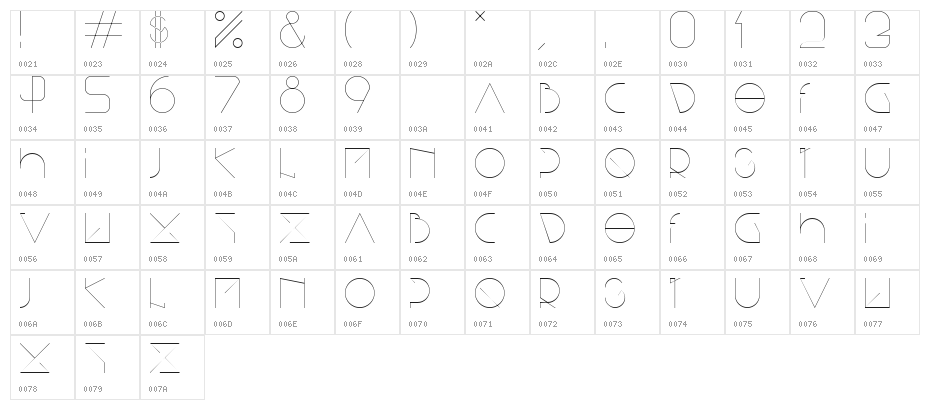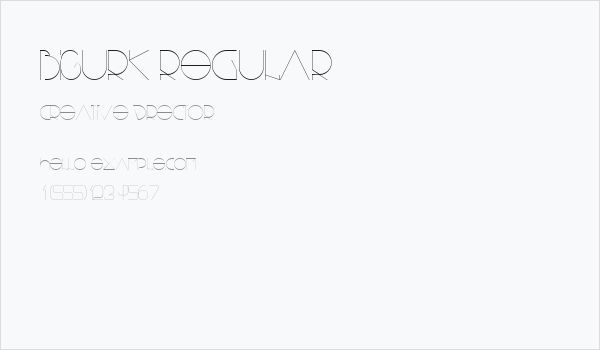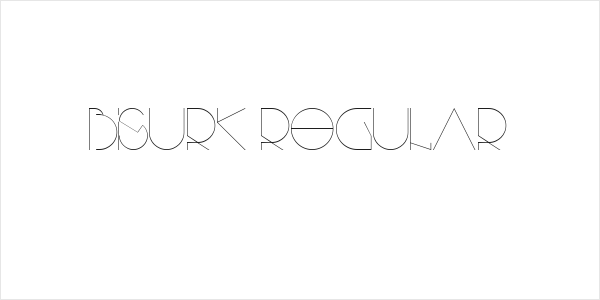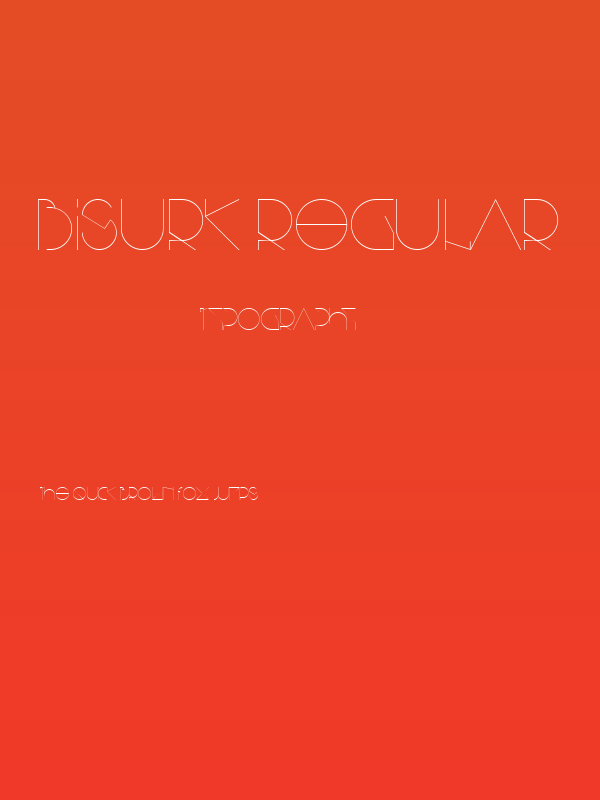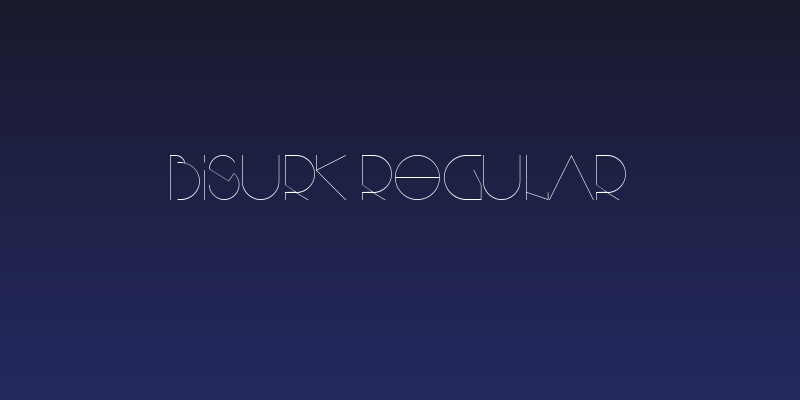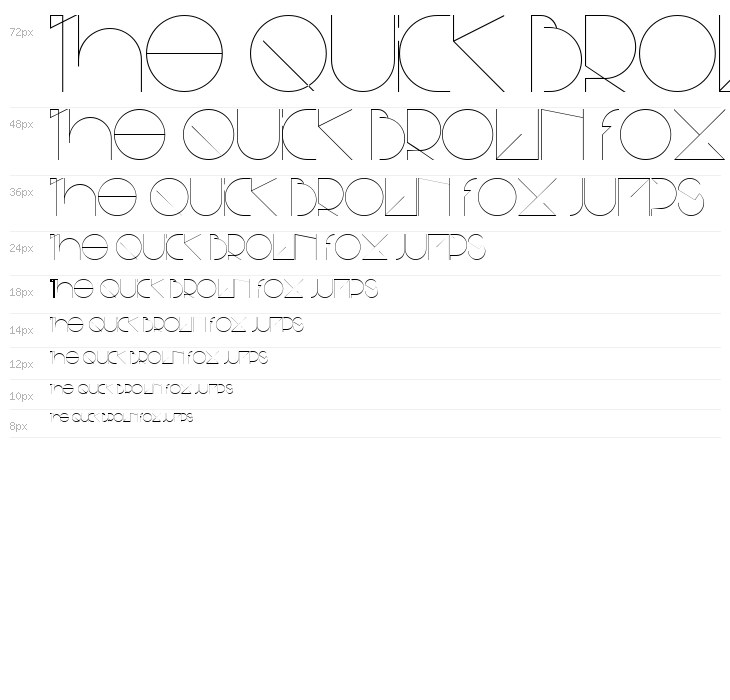
Bisurk Regular Font
Bisurk Regular Description
This font features a highly geometric and modern design, characterized by its use of clean, straight lines and sharp angles. The letters are constructed with a minimalist approach, often incorporating circular and triangular elements that give it a futuristic and abstract appearance. The uppercase and lowercase letters maintain a consistent style, with unique interpretations of traditional letterforms. The numerals and special characters follow the same geometric theme, ensuring a cohesive look across all characters. This font's distinct style makes it stand out, ideal for projects that require a contemporary and artistic touch.
| Use Case | Logos, Posters, Branding |
| Proposed Projects | Ideal for branding, logos, posters, and any project that seeks a modern and artistic aesthetic. |